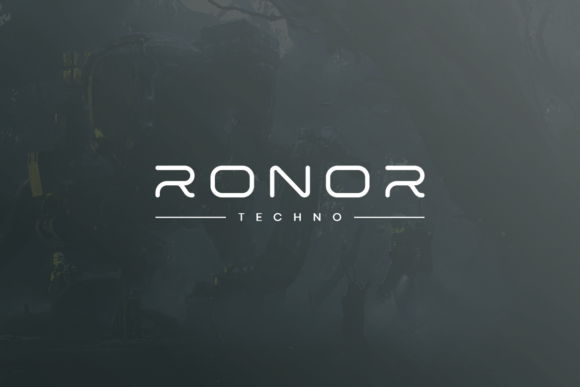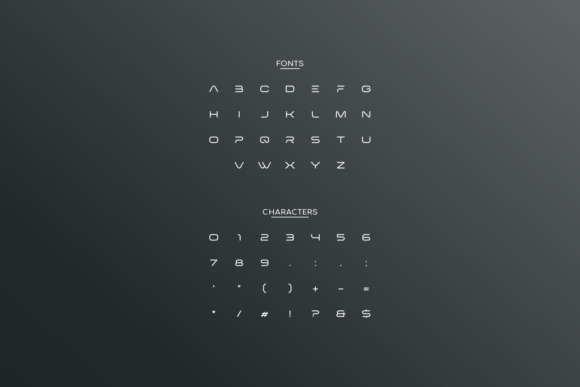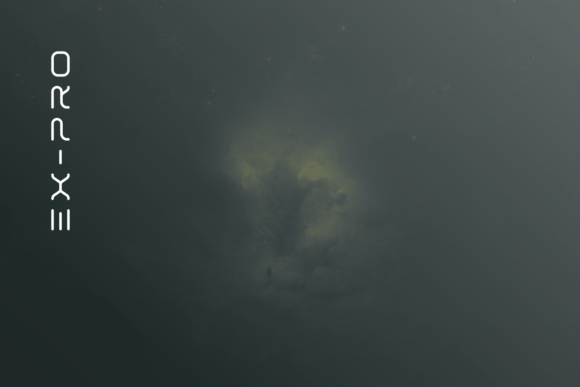
Introduction to Ropames Font
Have you ever found yourself staring at a blank screen, waiting for that perfect design idea to strike? For many designers, this is a familiar feeling. It’s the moment when creativity flows and a concept takes shape. But what happens when you need a little extra inspiration to push your project to the next level? This is where the Ropames Font comes in – a modern, elegant, and futuristic sans serif font that can add a unique touch to any creative project.
Whether you’re working on a web design, crafting business cards, or simply looking for a high-quality design resource, the Ropames Font is an excellent choice. Its versatility and sleek appearance make it an ideal solution for designers who want to elevate their work without sacrificing functionality. Plus, with its transparent background, you can easily incorporate it into any design without worrying about visual clutter.
Key Features of Ropames Font
- High-quality font with a unique, modern design suitable for creative projects
- Includes a range of glyphs and characters, including international characters and symbols
Honest Review: Ropames Font
I recently had the chance to experiment with the Ropames Font in a creative project, and I must say it’s a great addition to my design resources. The high quality of the font is immediately noticeable, with crisp and clear typography that’s perfect for headings and titles.
One of the standout features of Ropames Font is its transparent background, which makes it incredibly versatile and easy to use. I was able to integrate it seamlessly into my design, and it really helped to elevate the overall look and feel.
- High quality typography
- Easy to use and integrate
- May not be suitable for complex or large-scale designs (due to limited character set)
- No customization options (which may limit its use in certain creative projects)
Overall, I’m really impressed with the Ropames Font. It’s a great design resource that’s perfect for designers looking for a high-quality, easy-to-use font for their creative projects. While it may have some limitations, I think it’s definitely worth checking out.
Tips for Getting the Most Out of Ropames Font
To get the most out of Ropames Font, use it with a transparent background to create a high-quality design that stands out. Experiment with different font sizes and styles to add depth and visual interest to your creative project.
Ropames Font is a versatile design resource that can be used for a variety of creative projects, including logos, business cards, and brochures. Its high-quality design makes it an ideal choice for designers looking to create professional-looking materials.